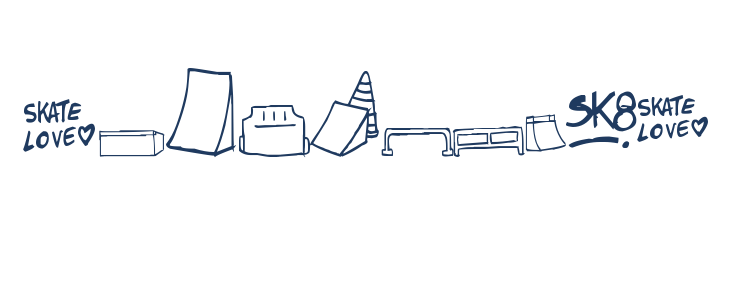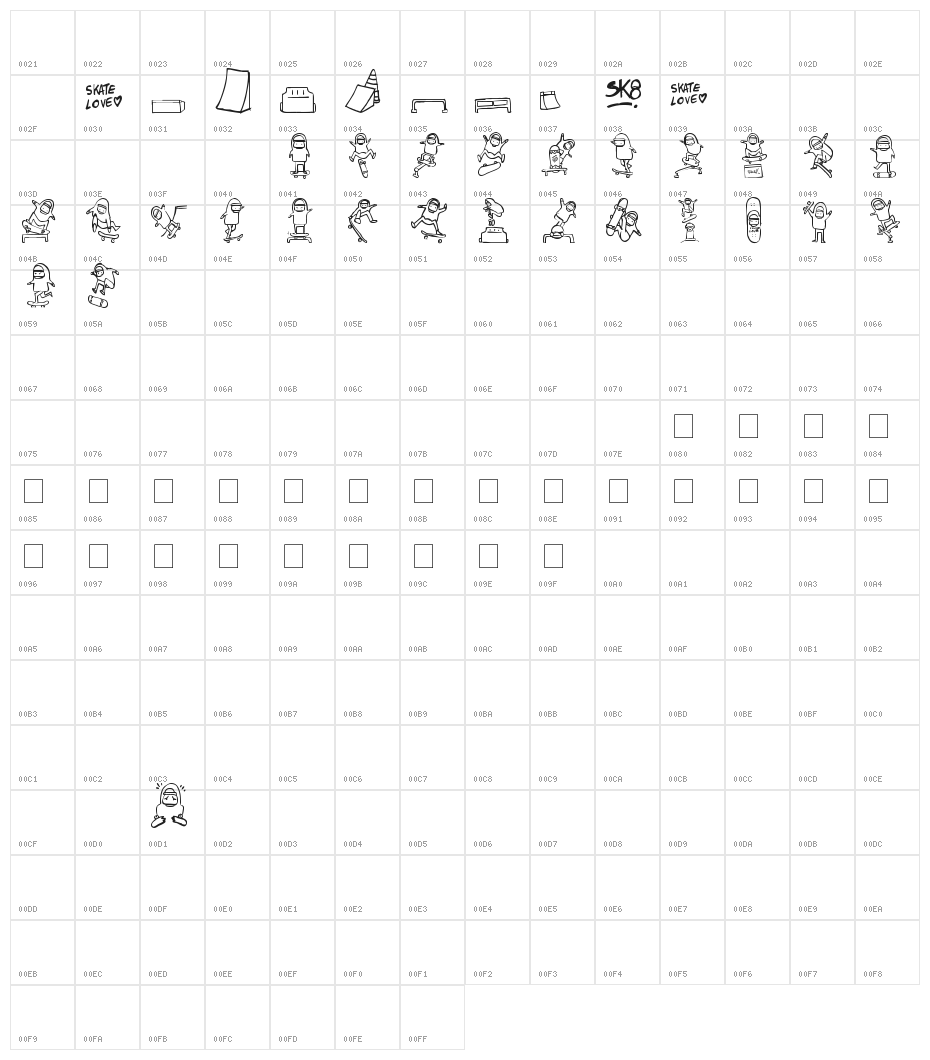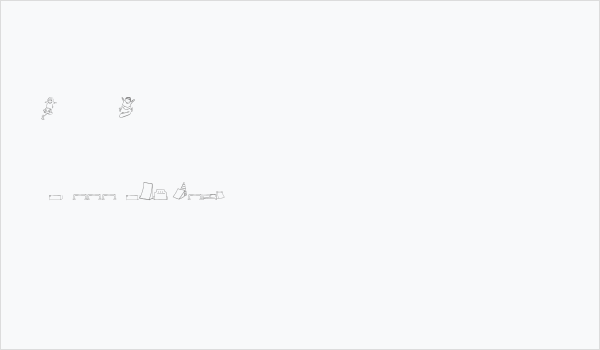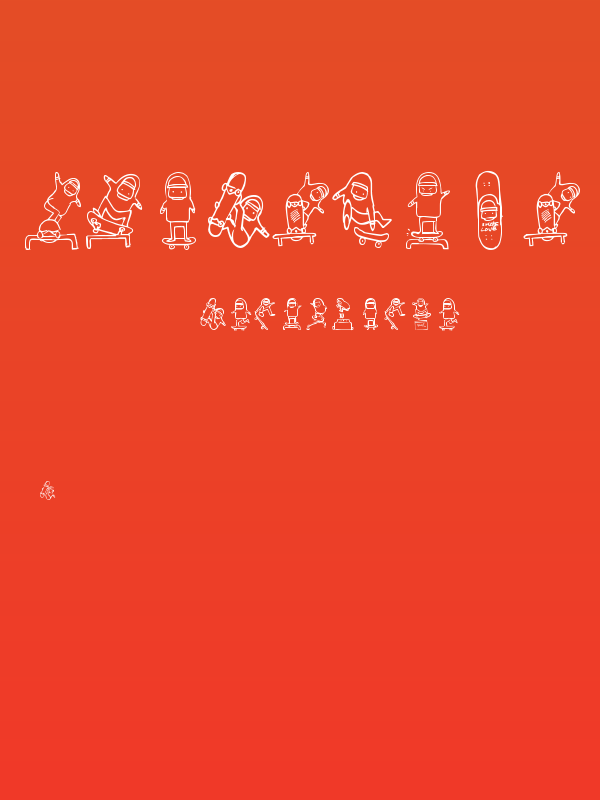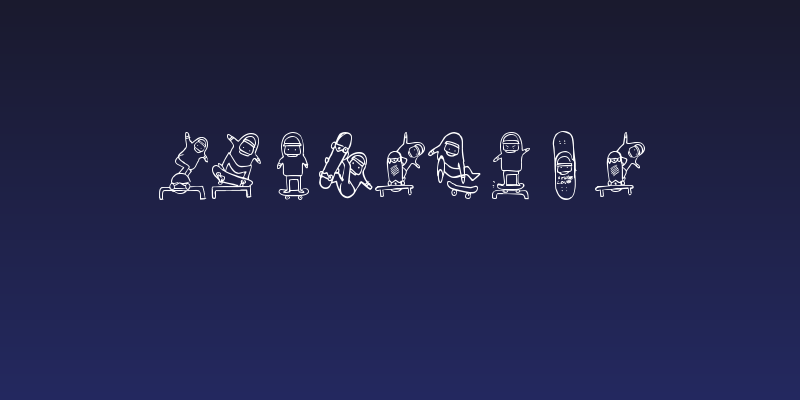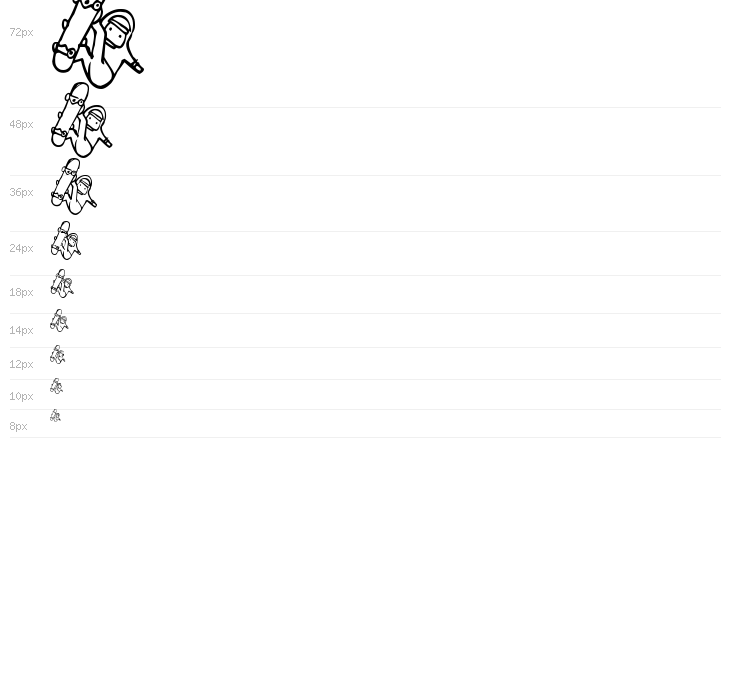
skatelove Font
skatelove Description
A playful, hand-drawn font featuring skateboarding characters, ramps, and urban elements, with casual, rounded, and slightly irregular letterforms that evoke a youthful, energetic vibe.
SKATELOVE UPPERCASE
SKATELOVE LOWERCASE
SKATELOVE OTHER CHARS
| Overall Style | Playful, Urban, Decorative |
| Use Case | Logos, Headlines, Posters, Themed graphics |
| Proposed Projects | Youth event posters, skateboard brand logos, apparel graphics, social media for skate culture, childrenΓ’β¬β’s books, stickers. |